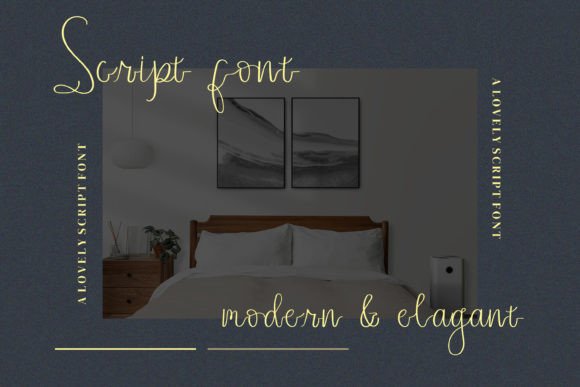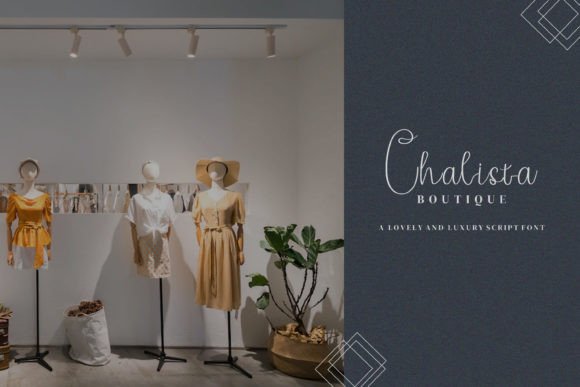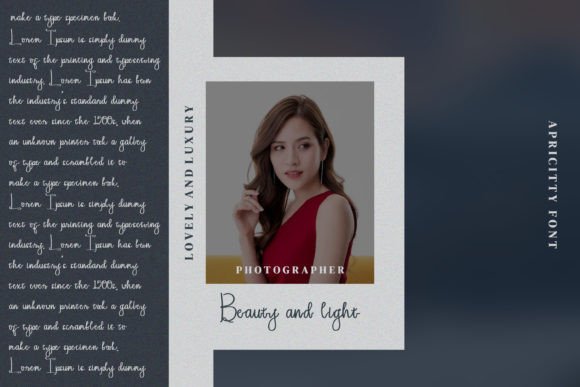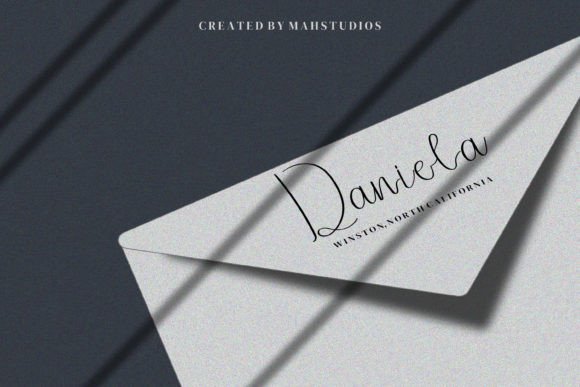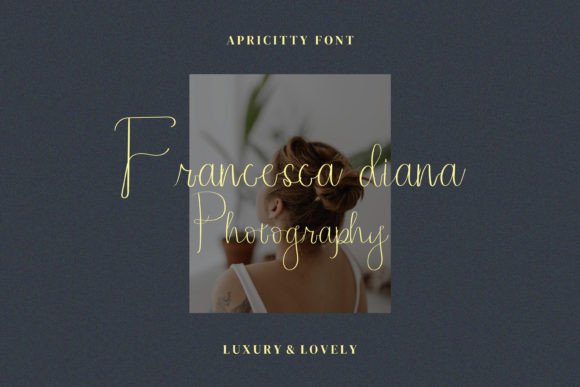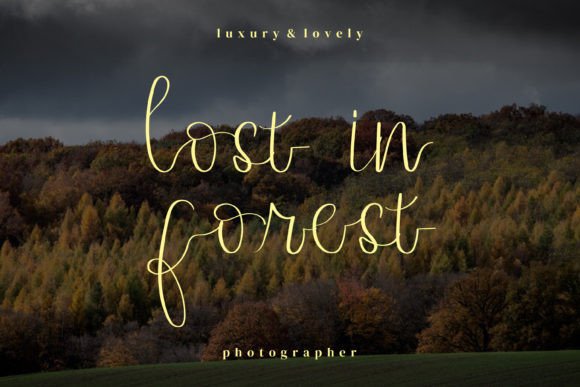
The Perfect Script: Elevating Your Designs with Apricitty Font
Have you ever found yourself staring at a blank canvas, eager to bring your creative vision to life, only to be held back by the perfect font? For designers, the right font can make all the difference between a good design and a great one. I’ve been there, too, and that’s why I’m excited to introduce you to Apricitty Font – a delicate script font that’s sure to become your new go-to companion.
Whether you’re working on a romantic wedding invitation, a charming children’s book, or a whimsical branding project, Apricitty Font has the potential to elevate your creation to new heights. Its gentle curves and elegant lines make it a versatile asset for any designer, allowing you to add a touch of sophistication and personality to your work.
Apricitty Font Key Features
- Font Family: Apricitty Font comes in two font families – Regular and Bold.
- Unique Characteristics: Apricitty Font features a unique blend of modern and vintage elements, with intricate details and subtle flourishes that add a touch of elegance to any design.
Designer Review: Apricitty Font
Apricitty Font is a beautiful, whimsical typeface that can add a touch of elegance and sophistication to any design. ✨ The font’s playful curves and rounded edges make it perfect for creating a sense of warmth and approachability.
Some of the things that work well with Apricitty Font include:
- Its versatility in use – it can be used for both digital and print media.
- The range of weights and styles available, allowing designers to create a consistent visual identity.
- Its legibility, making it easy to read in both large and small font sizes.
- Apricitty Font may not be suitable for formal or corporate designs, as its playful nature may not be taken seriously.
- The font’s rounded edges can sometimes make it difficult to read in certain contexts, such as in small font sizes or when used in dense text blocks.
- The font’s aesthetics may not be to everyone’s taste, as some people may find it too cutesy or childish.
Overall, I think Apricitty Font is a great addition to any designer’s toolkit, but it’s essential to use it judiciously and consider the context in which it will be used.
To get the most out of Apricitty Font, try using it in combination with other creative elements, such as illustrations or graphics. Experiment with different font sizes, colors, and styles to create a unique and eye-catching design.